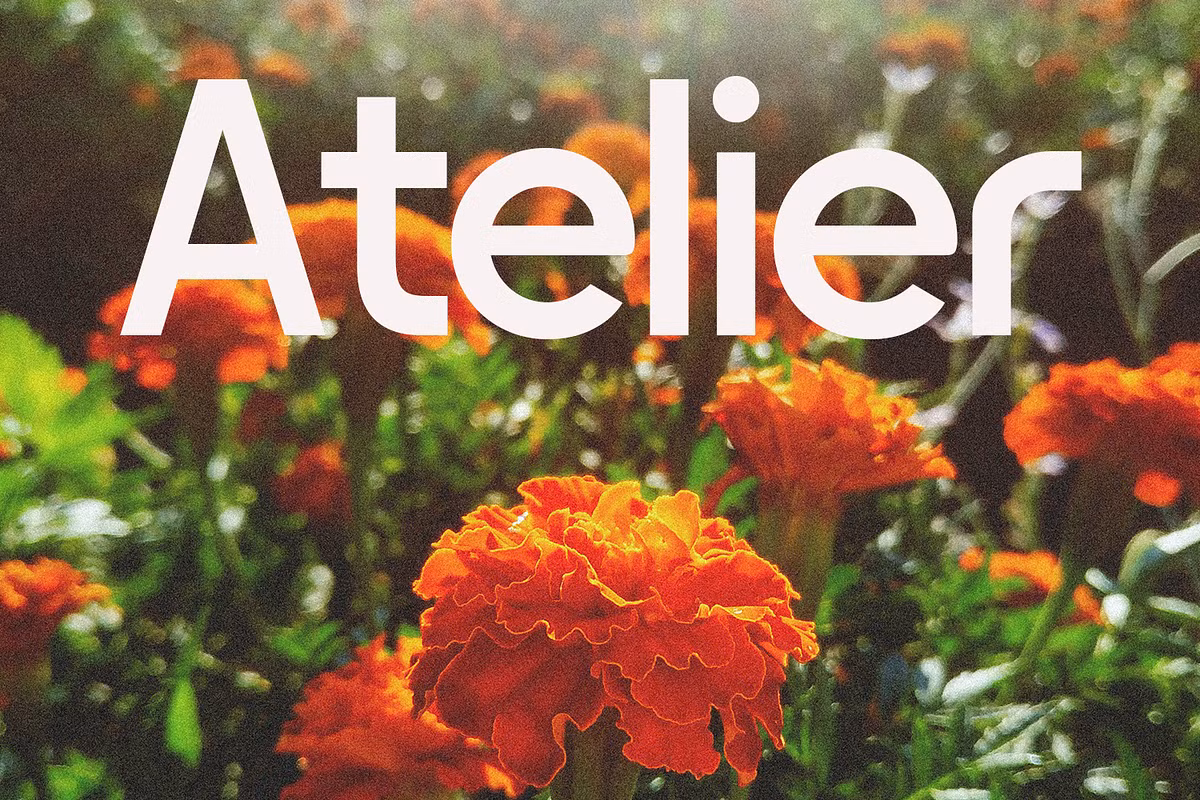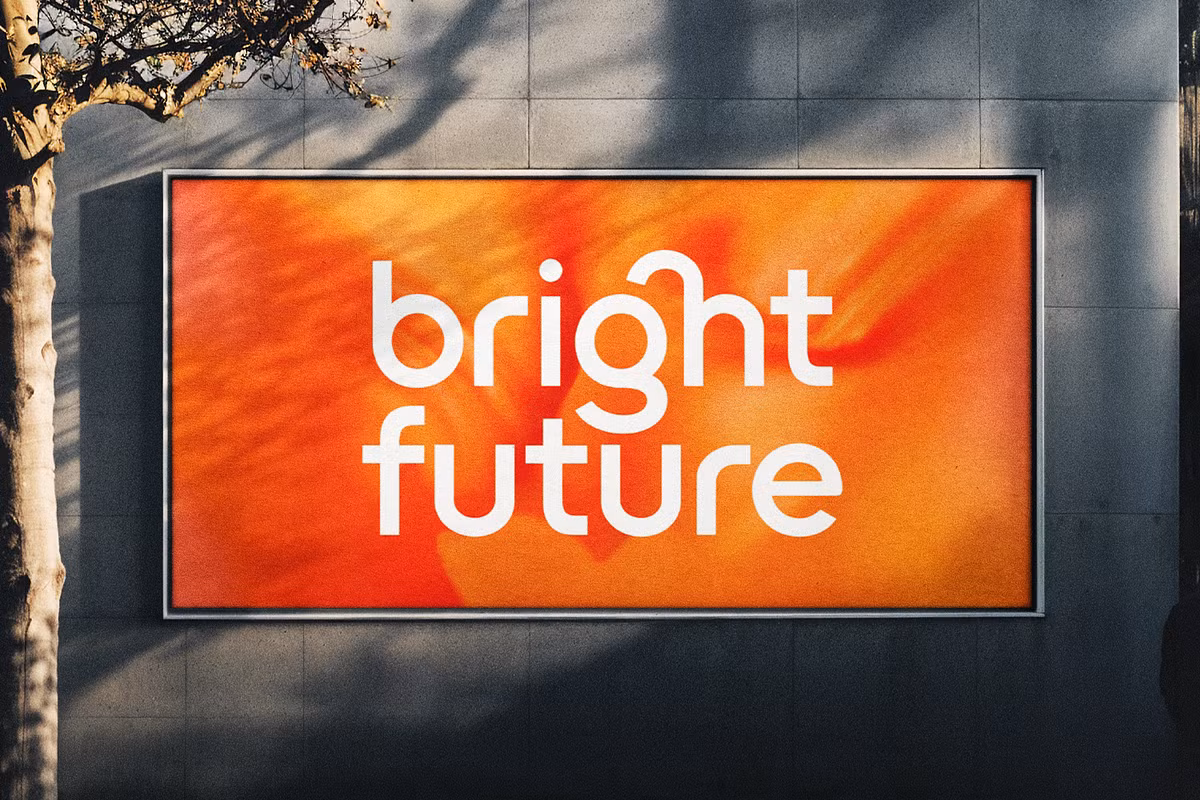
Ostra Centra: Stylish Geometric Sans Font for Modern Branding
Introducing Ostra Centra. Ostra Centra is a really cool font that’s perfect for modern designs. It’s got fun curves and sharp lines that make it stand out. This font is great for brands that want to look confident and energetic. It’s not just a font, it’s a tool that can totally change how your brand looks, from packaging to digital designs. Whether you’re a new tech company trying to make a splash or a fashion brand that wants to look classy, Ostra Centra has what you need. It’s versatile and can be used in lots of different ways, making it a great choice for anyone who wants to make a statement with their design. With its unique look, Ostra Centra can help you create a visual identity that’s all your own.
Design Style of Ostra Centra
Ostra Centra has a really simple and clean design. The rounded edges and special alternate letters make it look unique and eye-catching. This font is great for making headlines and designs that stand out. It’s a good mix of modern and fun, so it works well for lots of different uses. The way it looks is perfect for grabbing people’s attention and making things look fresh and exciting.
The font has a simple, yet stylish look that makes it easy to read on different platforms. Its special letter combinations, called ligatures, add a touch of creativity, letting designers make unique text layouts with minimal effort. Ostra Centra is made to grab attention without sacrificing its professional feel, making it a great choice for various design projects.
Character Sets and Versatility
Ostra Centra has a wide range of characters, including big and small letters. This makes the font very useful, especially since it can be used with many different languages. That means companies that work all around the world can use it to keep their message looking the same and having a strong impact, no matter where they are.
Ostra Centra also has some special features that make it stand out – it includes unique ligatures that give your designs a one-of-a-kind feel. So, whether you’re working on a website, a package, or something else, you can use this font without worrying that your typography will look boring or too familiar. The person who designed the font made sure that each letter works well with all the others, which means you can try out different layouts and still get something that looks really good.
Use Cases for Ostra Centra
Ostra Centra is incredibly versatile and can be utilized in a variety of contexts. Here are some compelling use cases:
- Creating a logo for a new product or giving an old brand a fresh look is a big job. Ostra Centra can help make a brand look modern and appealing to today’s consumers. They can help create a brand identity that fits in with the times.
- Ostra Centra makes posters that really stand out. The font is bold and eye-catching, which is perfect for getting people’s attention. You can also use it to create unique layouts that will make your posters look different from all the others in a crowded space.
- Web Design: In digital contexts, Ostra Centra maintains clarity and accessibility, making it an excellent choice for website headers, navigation, and call-to-action buttons.
- Editorial Design: If you’re looking for a font that adds flair to magazines or online articles, Ostra Centra’s playful yet structured design can elevate your editorial layouts.
When it comes to creating harmonious designs, pairing fonts effectively is essential. Ostra Centra has a contemporary feel that pairs well with a variety of other typefaces. Here are some recommendations:
- Serif Fonts: Pair Ostra Centra with a classic serif font like Merriweather or Playfair Display to create a striking contrast between modern and traditional elements.
- For a sleek and contemporary look, try pairing it with a different sans-serif font, such as Roboto or Open Sans. This combination creates a consistent visual style and ensures that your text remains easy to read.
- To give your design a bit of class, try pairing Ostra Centra with a fancy script font, like Pacifico or Great Vibes. This combo is perfect for things like invitations and creative branding, adding a unique touch.
Ostra Centra is a great choice for designers and brands who want to create a modern and lasting impression. Its unique design and flexibility make it a valuable asset for anyone looking to build a strong identity. This font is more than just a tool – it’s a partner that can help bring your creative vision to life.
One of the best things about Ostra Centra is how versatile it is – it supports lots of different languages and has a unique set of characters. This means you can use it to create designs that are not only visually appealing but also get your message across clearly. So why not give your design projects a boost with Ostra Centra and let the typography speak for itself? With this font, you can create something that really stands out and makes a lasting impression.